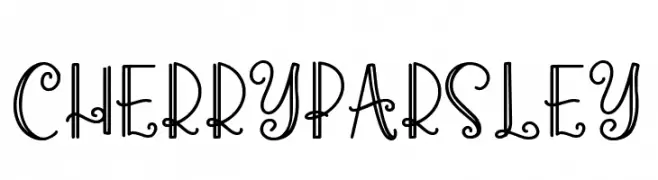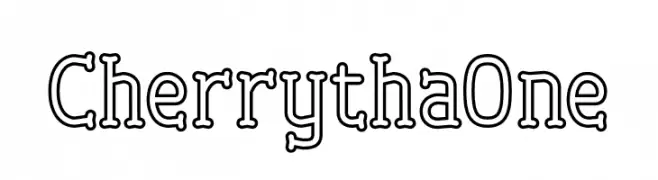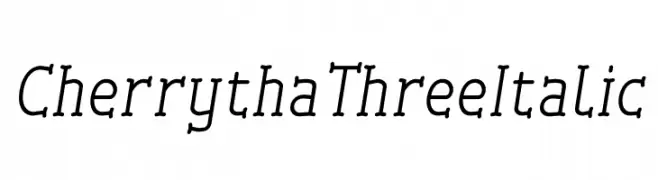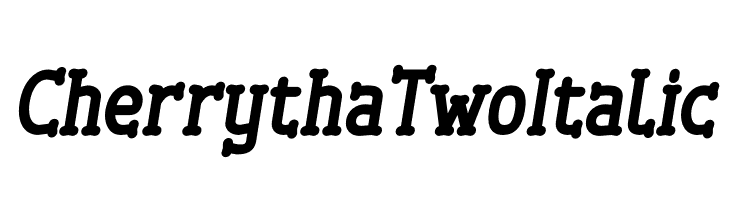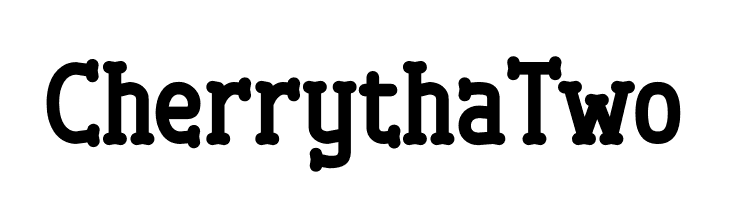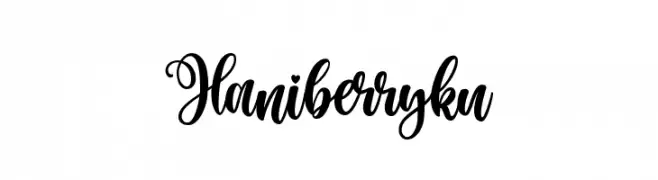
An elegant script font with ornate swirls and loops, perfect for decorative use.
A bold, geometric font with sharp angles and a modern aesthetic.
A bold, playful font with dynamic, angular characters and a cartoonish style.
A playful and whimsical font with curly, decorative strokes.
A bold, playful typeface with rounded, bubbly characters.
A playful, rounded font with smooth curves and a friendly appearance.
A bold, playful italic font with rounded, thick strokes.
A playful, bold font with rounded edges and a whimsical style.
A playful, decorative font with bold outlines and a whimsical style.
A slanted, handwritten-style font with consistent stroke width.